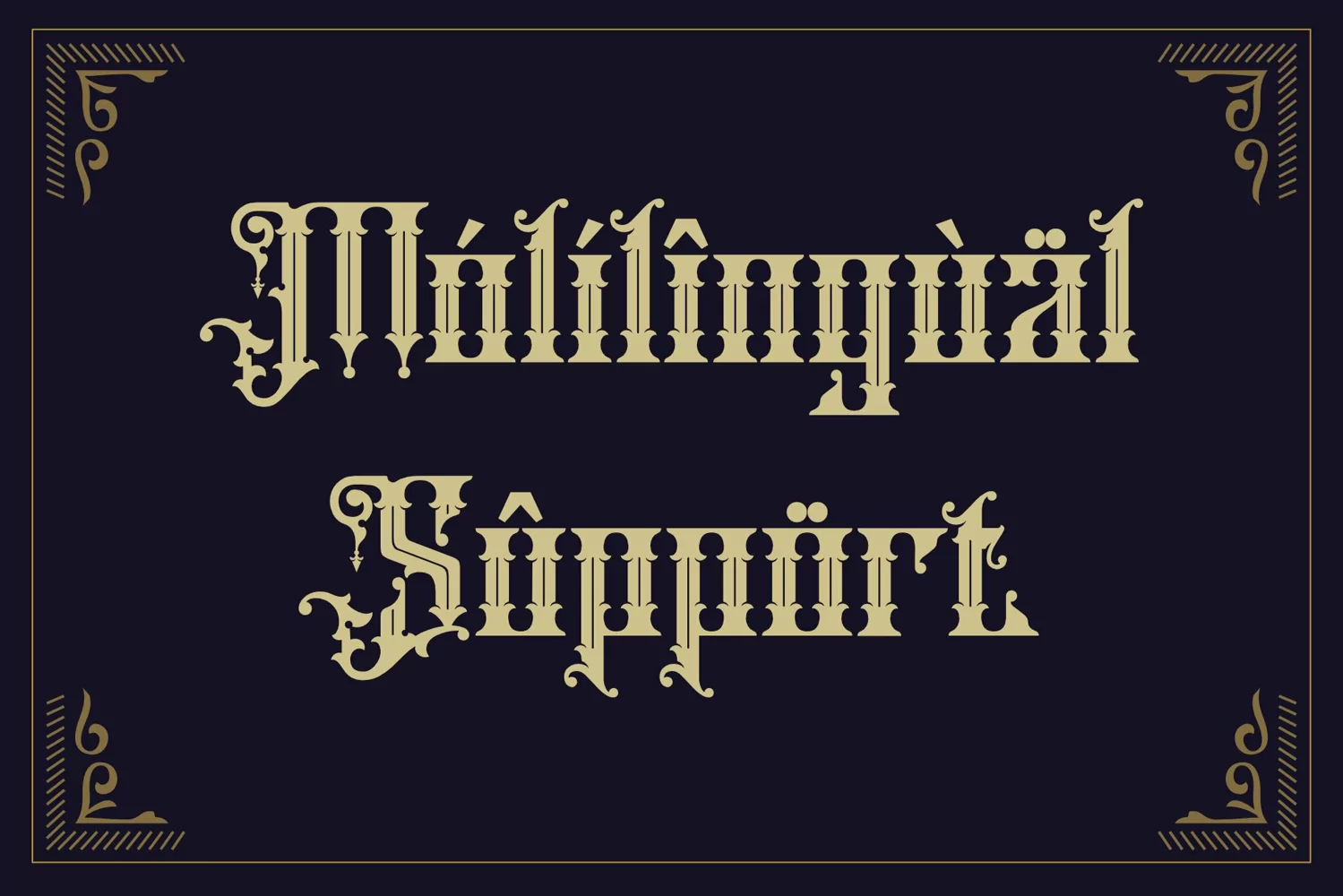
Khian shantang
**Khian shantang Font**
This pair was inspired by the vintage motorbike poster design that i saw on some coffee shop, It was crafted by hand specially to add natural handmade feeling in its brand identity than i make it clean with pentool.
**Opentype features**
Khian shantang font has 238 character set included
Khian shantang Font is very good looking in logo, labels, t-shirt prints, product packaging, invitations, advertising and others.